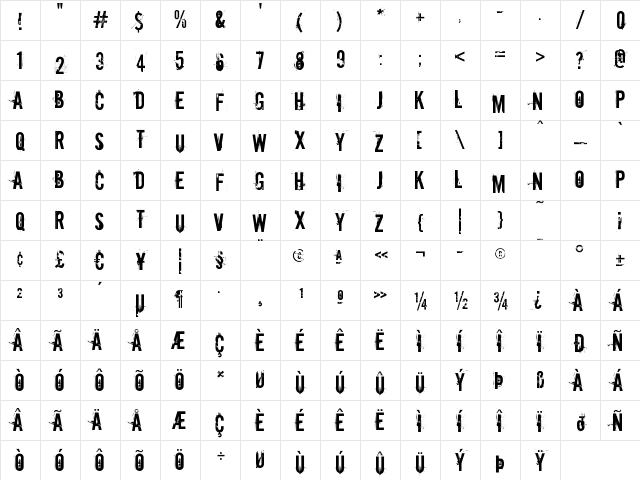
Downcome Regular
Design Context for Downcome
Downcome is a composed and adaptable typeface that performs quietly and consistently across a wide range of design contexts.